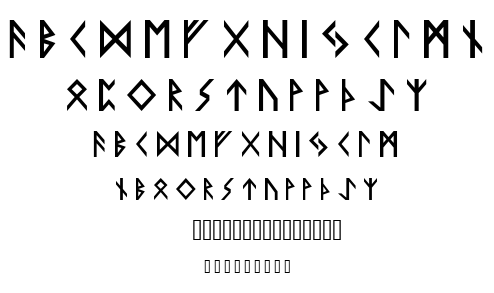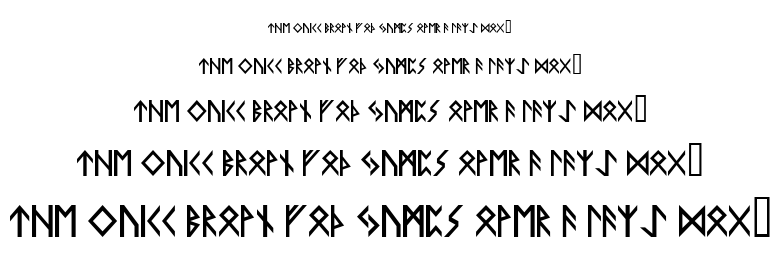
God and Jötunn.
A little bit of both. The wry smile that winds between the fjords and mountains. The whispers that creeps through houses. High above and down below. As a pillar and foundation, but also unpredictable in its shape and apperance.
This font is created to retain the deep roots of norse and the spilled blood that never dried.
Hveðrungr. Loke.
This is Floki.